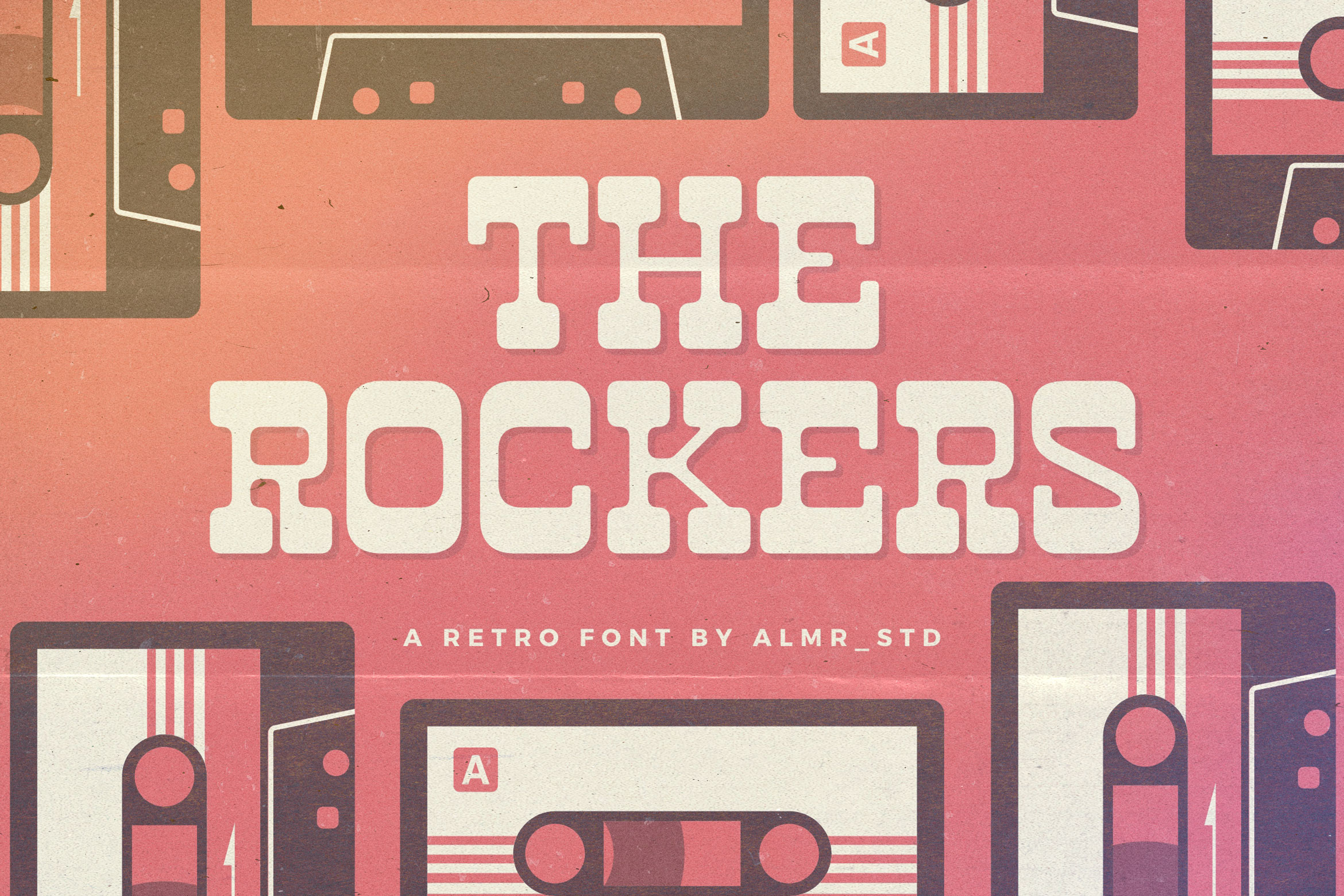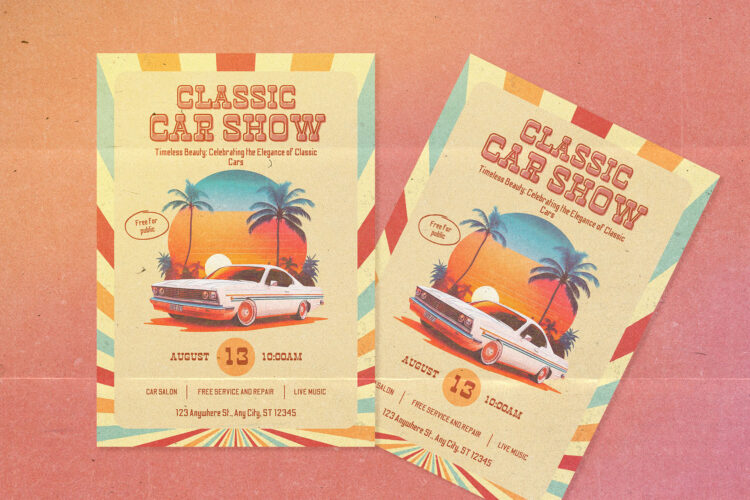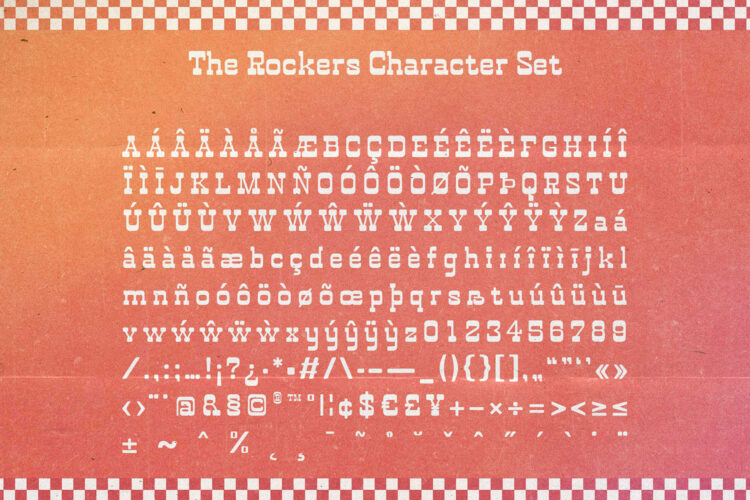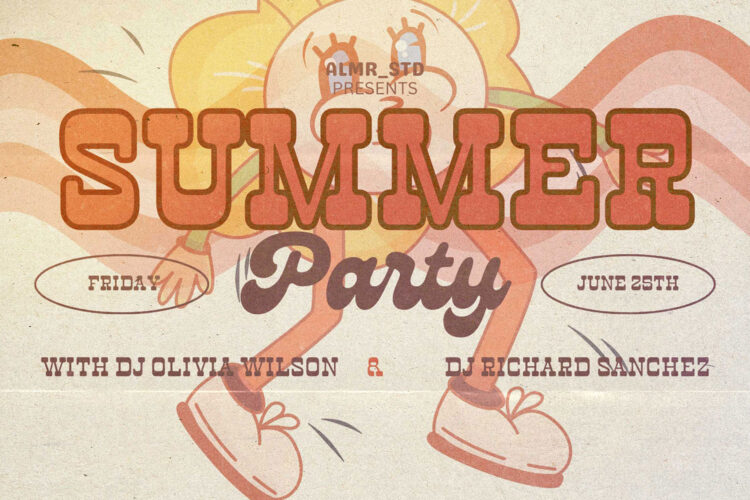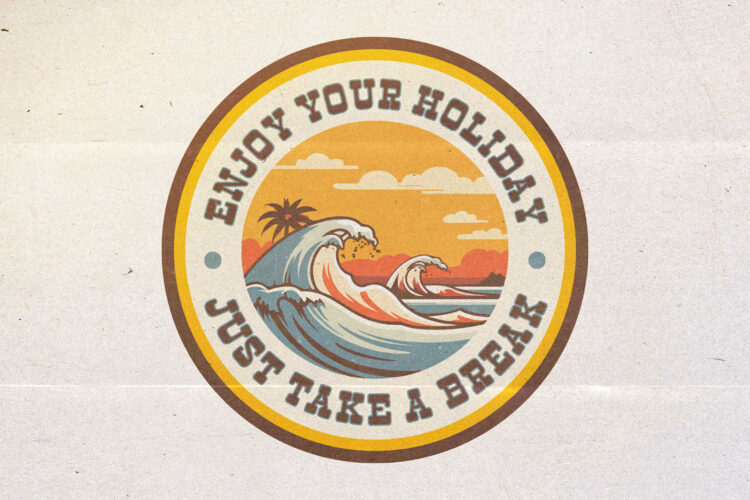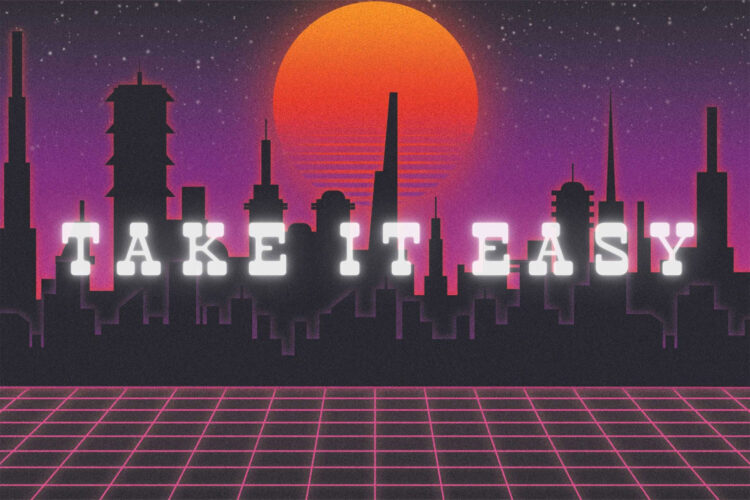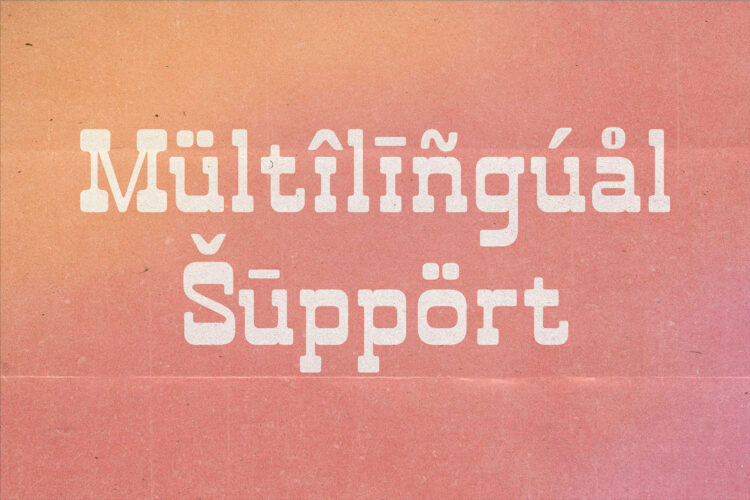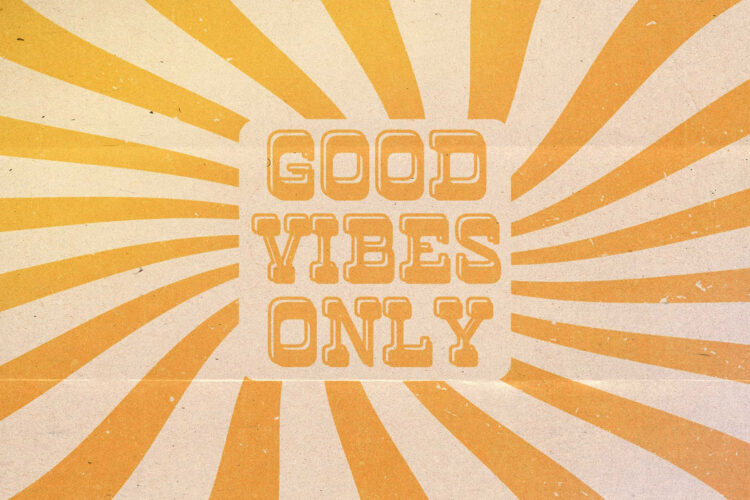
Introducing The Rockers – Retro Serif Font. The Rockers is Retro Serif Font, best used as a display for headings, logos, branding, magazines, product packaging and invitations. Migullon come with clean lines and smooth curves give any project an extra touch of class.
The Rockers – Retro Serif Font